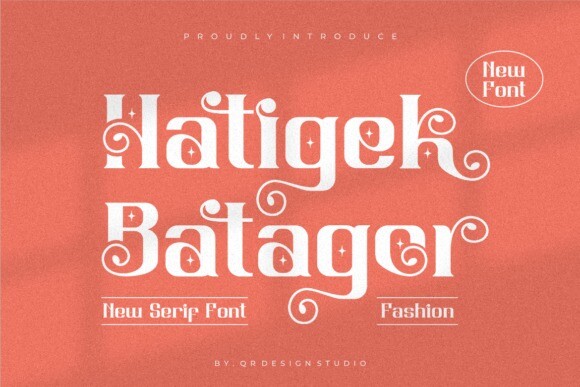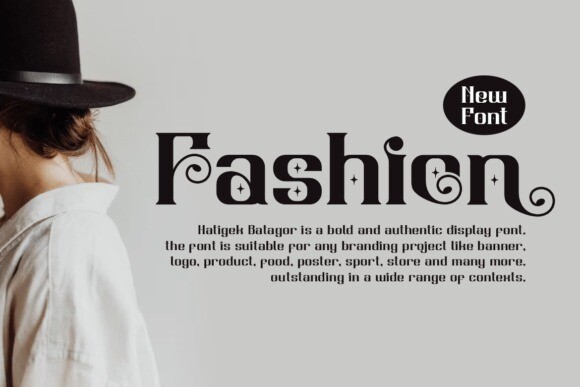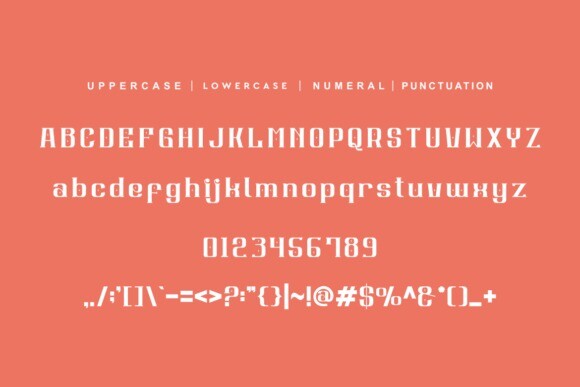
Hatigek Batagor Font
Hatigek Batagor Font is an elegant and bold serif font. Fall in love with its incredibly
versatile style and use it to create gorgeous wedding invitations, beautiful
stationary art, eye-catching social media posts, and much more!